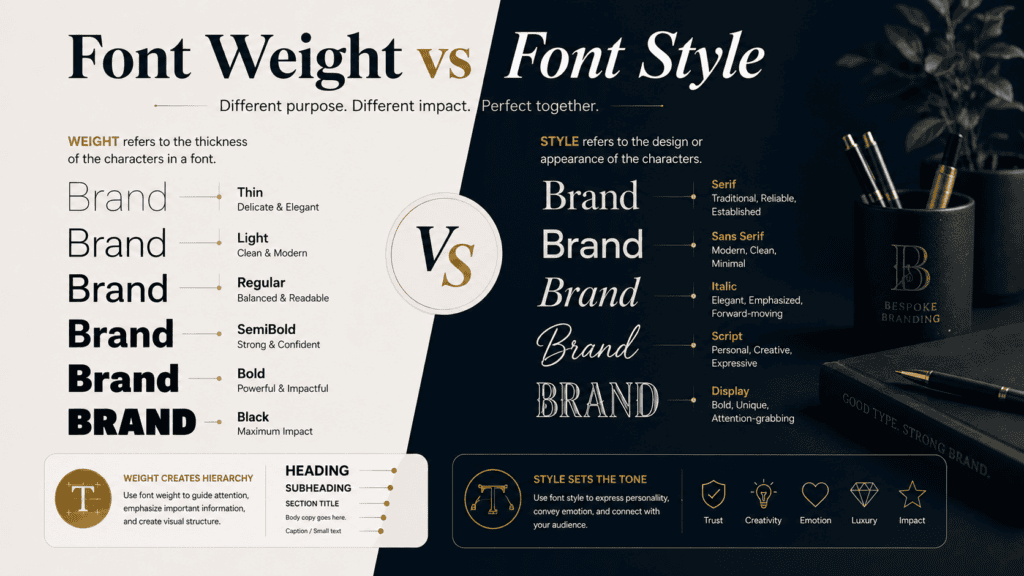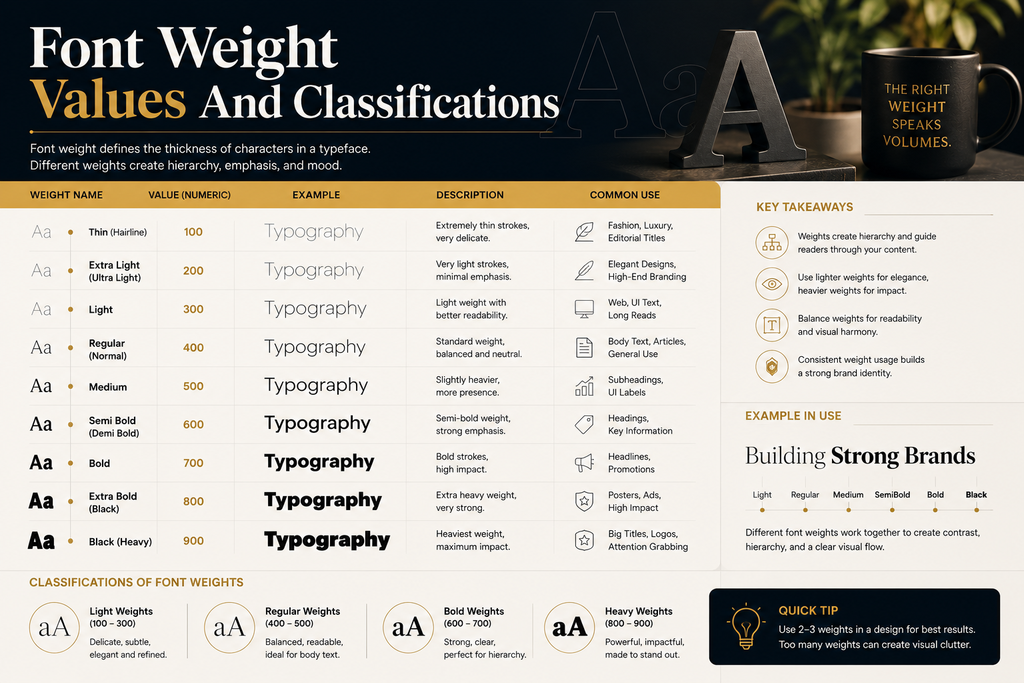
I often examine font-weight choices before adjusting font-style because their differences shape typography decisions. A designer’s font selection changes visual appearance through thickness and italic effects while creating balanced design systems with clear emphasis and hierarchy.
My workflow explores how CSS property behavior connects characters and values across a typeface family. I have seen bold or normal options influence readability when building layouts, where font variations reveal subtle formatting choices.
What Is Font Weight?
I define font-weight through typography as a way to control thickness in letters rather than changing their shape. My design practice shows weight choices create hierarchy using light or bold levels for clear text structure.
Unlike font-style changes, font-weight focuses on stroke density and visual presence. I analyze numeric values, from normal to bold, because each choice affects readability, emphasis, contrast, and presentation across digital typography projects with practical insight.
What Is Font Style?
In practical typography work, font style changes how characters are presented rather than how thick they appear. Italic, oblique, and normal forms reshape visual characteristics, helping designers signal emphasis, tone, or distinction without changing weight.
I usually treat font style as a presentation choice controlled through CSS, while HTML can preserve semantic meaning. Used carefully, styling supports readability, hierarchy, and design intent by giving a typeface purposeful variation across content.
Font Weight Values And Classifications
In practice, font weight works best as a spectrum: 100 signals thin, while 400 often represents regular text and 700 commonly appears bold. Higher numerical values increase perceived thickness, creating clearer visual prominence across layouts.
I usually classify intermediate font weights by purpose rather than classifications alone: light, medium, semi bold, extra bold, and black can vary by font family. Variable fonts add ranges, letting developers choose precise emphasis efficiently.
Font Weight Vs Font Style: Main Difference
Font weight defines the thickness and visual density of letter strokes, while font style changes the character shape through italic or oblique forms. In practice, I examine both properties together because they influence appearance, readability, and design balance.
A common misconception is that weight and style create identical effects. Font-weight controls boldness levels, whereas font-style introduces angled variations. Designers use these differences to create contrast, hierarchy, and personality while maintaining consistent typography across digital interfaces.
HTML Tags Vs CSS Properties
HTML tags communicate meaning and structure, while CSS properties control presentation. In practice, I use strong, em, and other semantic tags for purpose, then apply font-weight or font-style for visual refinement.
A property changes appearance without replacing structure. Thus, font-weight adjusts boldness, whereas font-style creates italic or oblique presentation; HTML preserves meaning, supporting clearer maintenance, responsive styling, and dependable accessibility across interfaces.
Using Font Weight For Design Hierarchy
Headings gain authority through font weight, while supporting copy stays restrained for text clarity. In practice, I test weight variations beside spacing, because contrast should organize information without making the page feel visually crowded or aggressive.
A useful contrarian approach is reserving thin weights for large display text and choosing heavier weights only where scanning matters. Under varied design conditions, I adjust the font-weight value after checking visual comfort, size, and background contrast.
Variable Fonts And Flexible Weight Control
A variable font lets designers adjust weight variations continuously, so multiple weights become responsive settings rather than fixed files. This supports precise text clarity, smoother hierarchy, and consistent visual comfort across interfaces.
In practice, I tune font-weight by context, testing each value against screen size, color contrast, and accessibility needs. Variable axes can preserve appearance while changing density, helping users read comfortably under changing conditions.
Why Font Weight Matters In Typography
In my typography work, font weight is not decoration; it controls reading rhythm. Subtle boldness strengthens visual hierarchy, while measured contrast separates information without disrupting structure or comfortable reading across screens.
A thoughtful font family offers multiple weights that guide attention: lighter weights can support quiet body text, while heavier weights emphasize headlines and important elements, improving organization, scanning, and text clarity.
Which Font Weight Is Best For Body Text?
For body text, I usually choose regular or 400, then test appearance, contrast, and accessibility at realistic sizes. body text needs comfortable reading, while heavier weights can fatigue readers and reduce clarity across longer paragraphs.